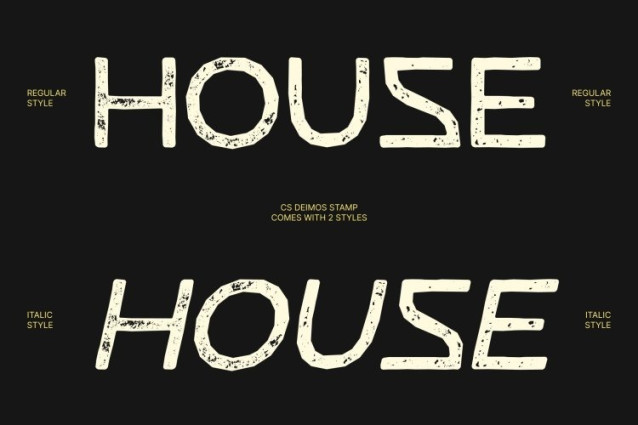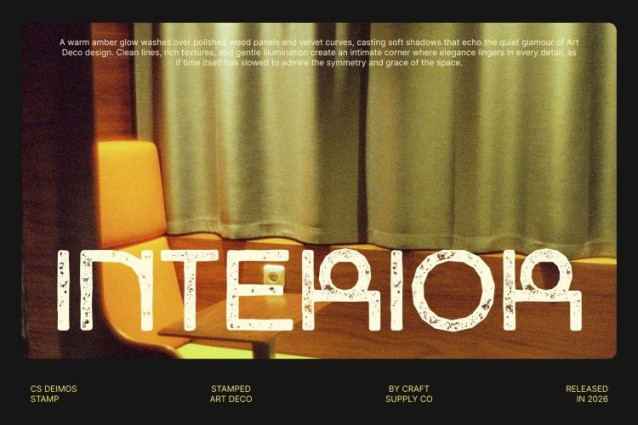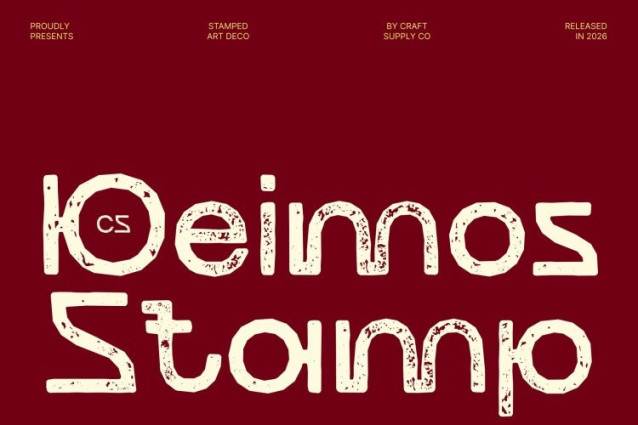
CS Deimos Stamp Font
CS Deimos Stamp Font – This is a contemporary Art Deco display font that radiates glamour and sophistication through its geometric precision and symmetrical structure. Clean lines, sharp angles, and ornamental detailing echo the opulence of the Art Deco era while maintaining a refined modern sensibility.
Stamp Texture for Vintage Character
A subtle stamped texture adds depth and tactile charm, giving the font a slightly worn, printed feel. This effect enhances the vintage atmosphere while preserving clarity, making the typeface feel both classic and contemporary.
Strong Structure with a Futuristic Edge
Its bold vertical rhythm and balanced proportions create a stable, confident presence. The geometric construction introduces a sleek, futuristic tone, making the font perfect for designs that blend timeless luxury with modern aesthetics.
Ideal for Luxury Branding and Elegant Displays
Perfect for posters, invitations, packaging, logos, and premium branding, this font delivers striking visual impact and refined sophistication. It’s an ideal choice for projects that aim to capture elegance, glamour, and a bold Art Deco spirit.